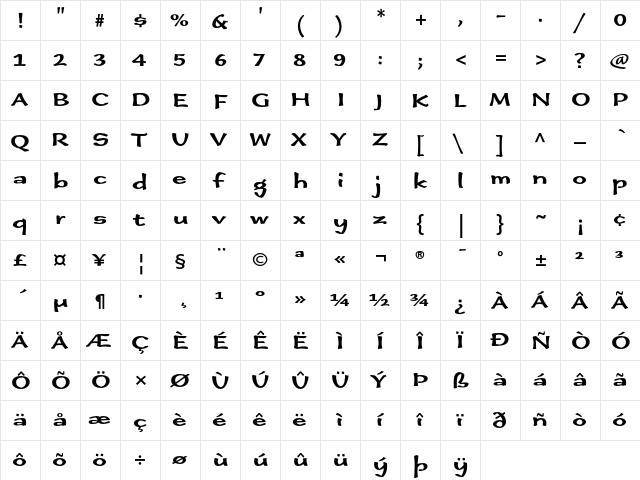
Immi 505 Regular
Design Context for Immi 505 Typeface
Immi 505 offers clean, dependable letterforms without strong stylistic allegiance, making it a practical choice for designers who need flexibility.
Pro Tip: Pair Immi 505 with a font of contrasting weight or personality to build a more expressive typographic hierarchy.